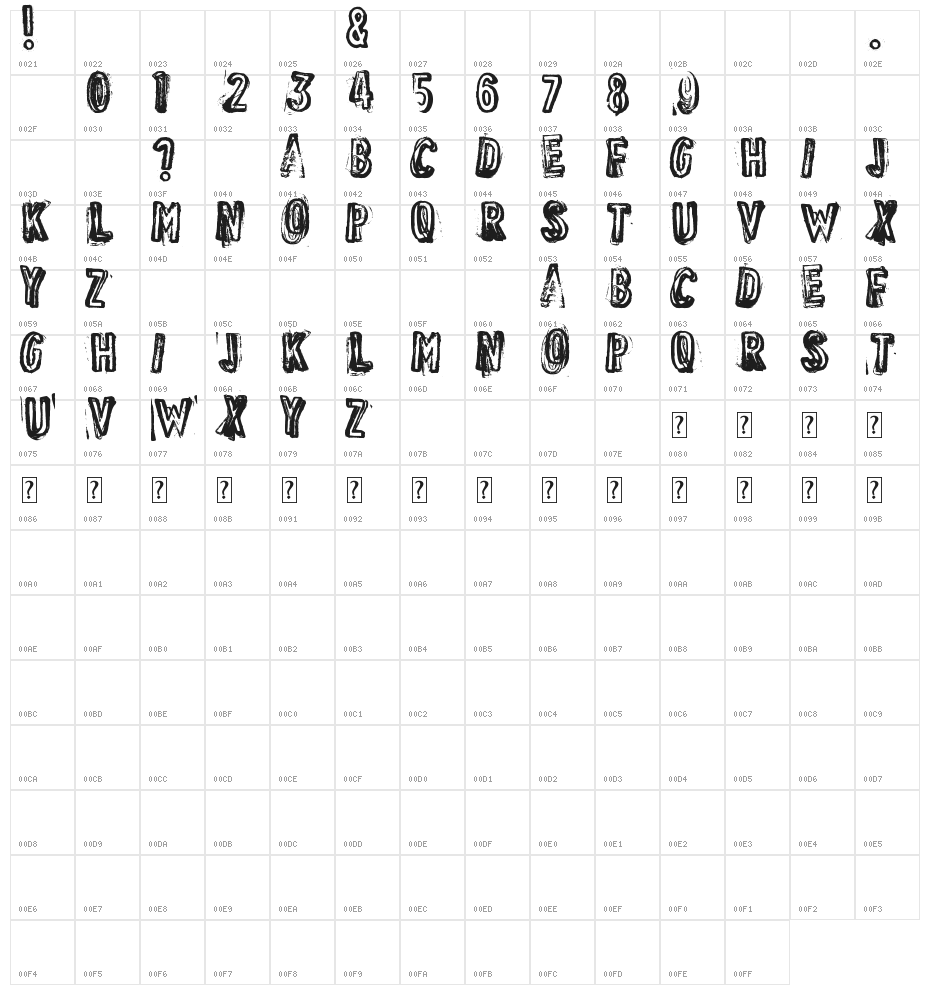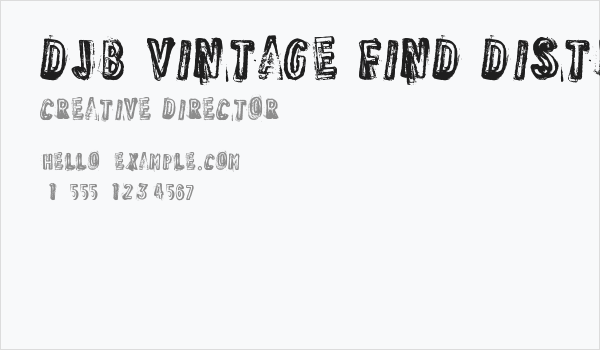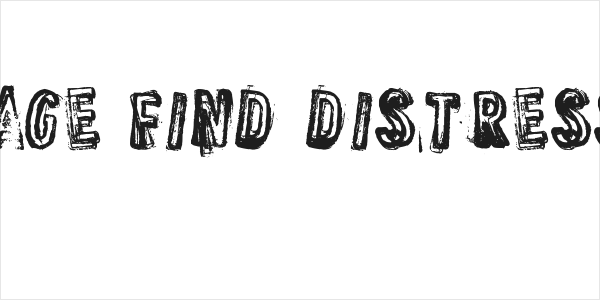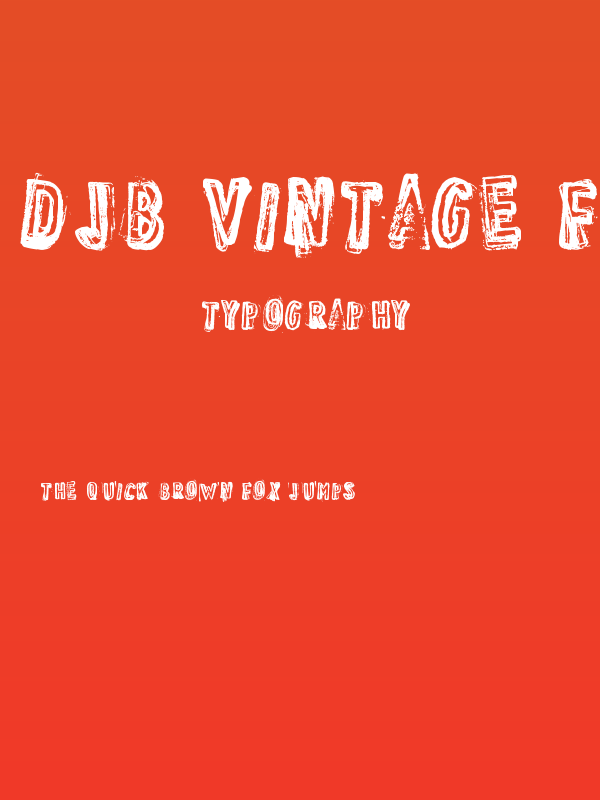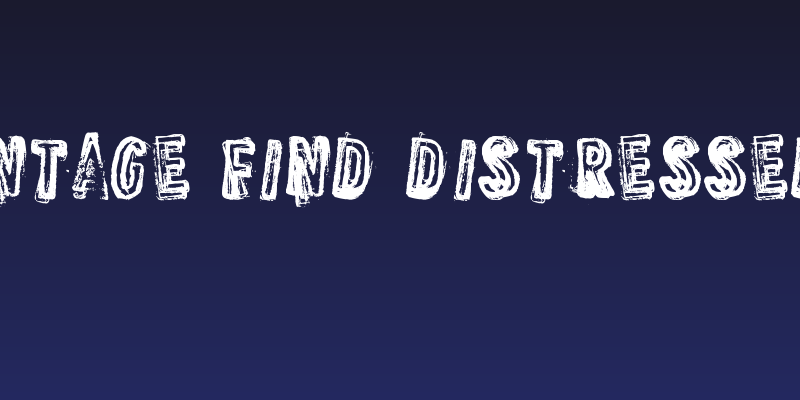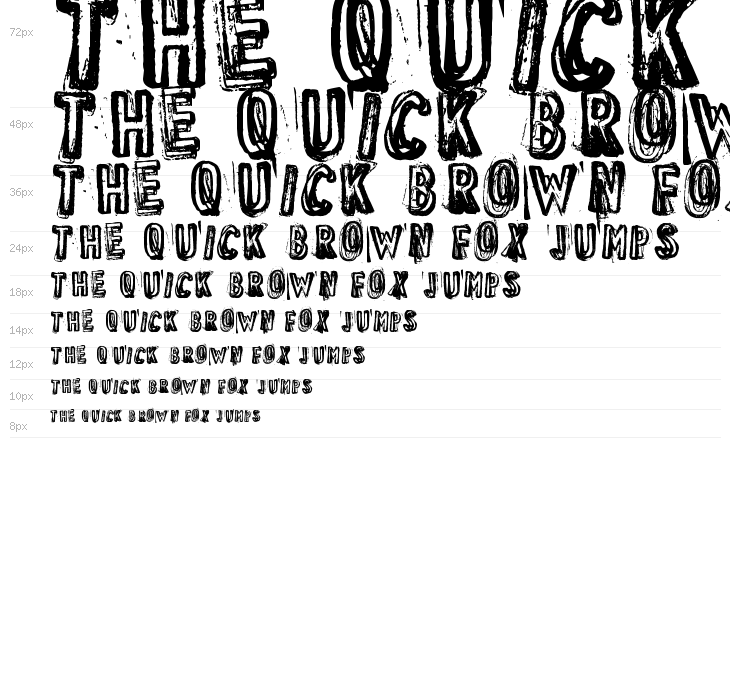
DJB Vintage Find Distressed Bold Font
DJB Vintage Find Distressed Bold Description
| Proposed Projects | Ideal for vintage-themed designs, posters, logos, and branding that require a rustic or aged look. |